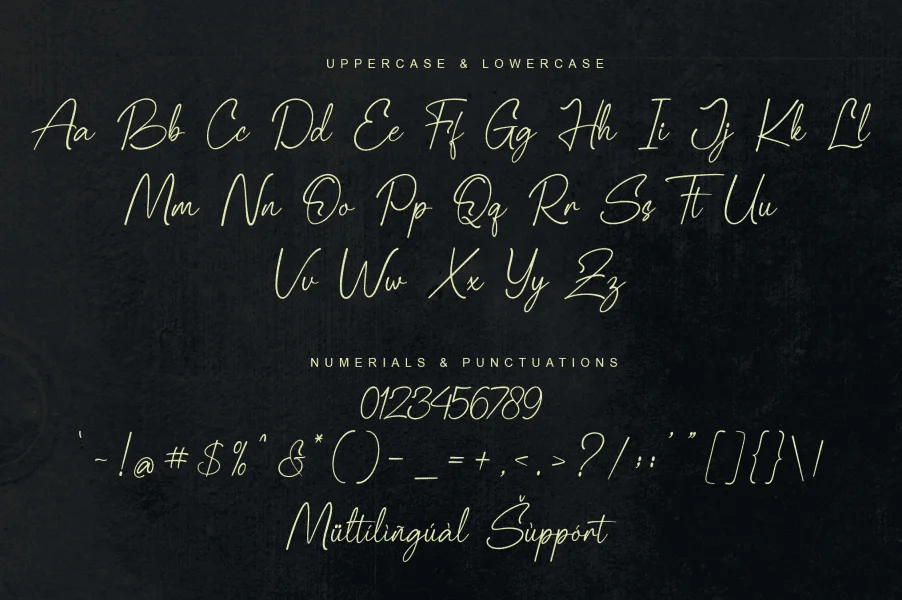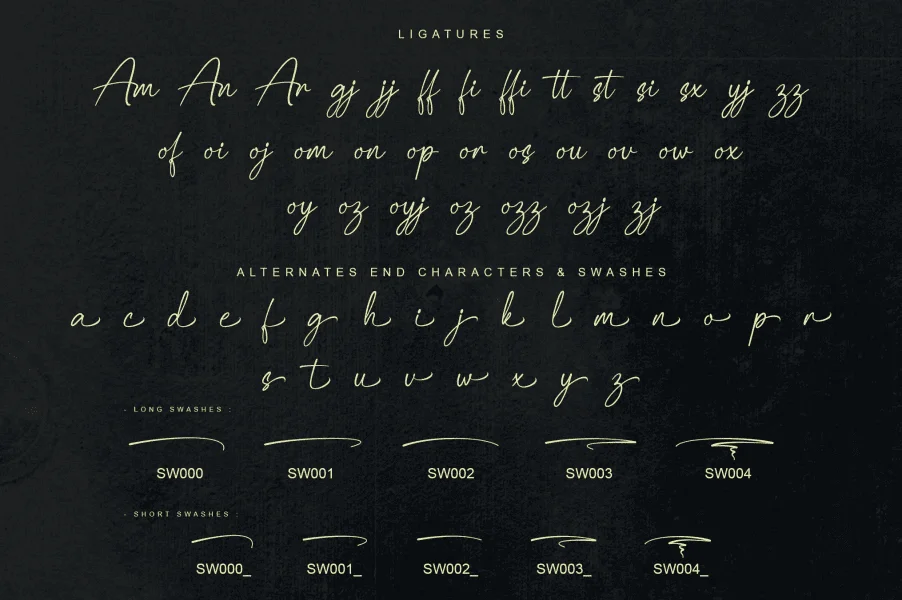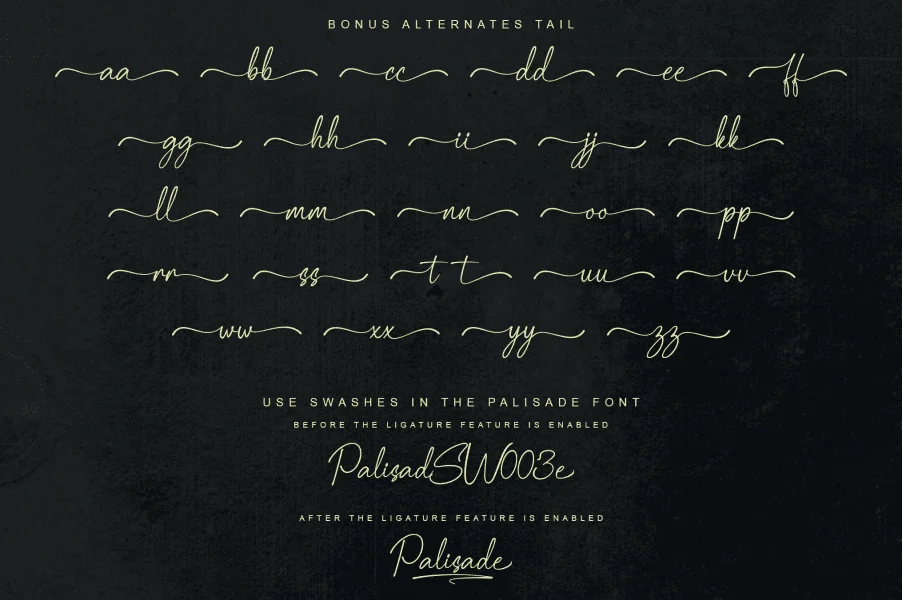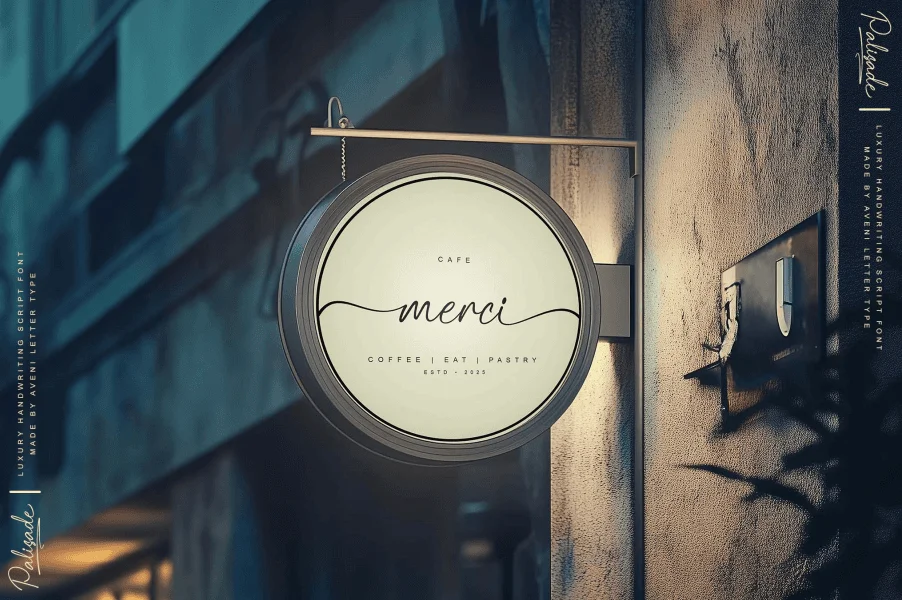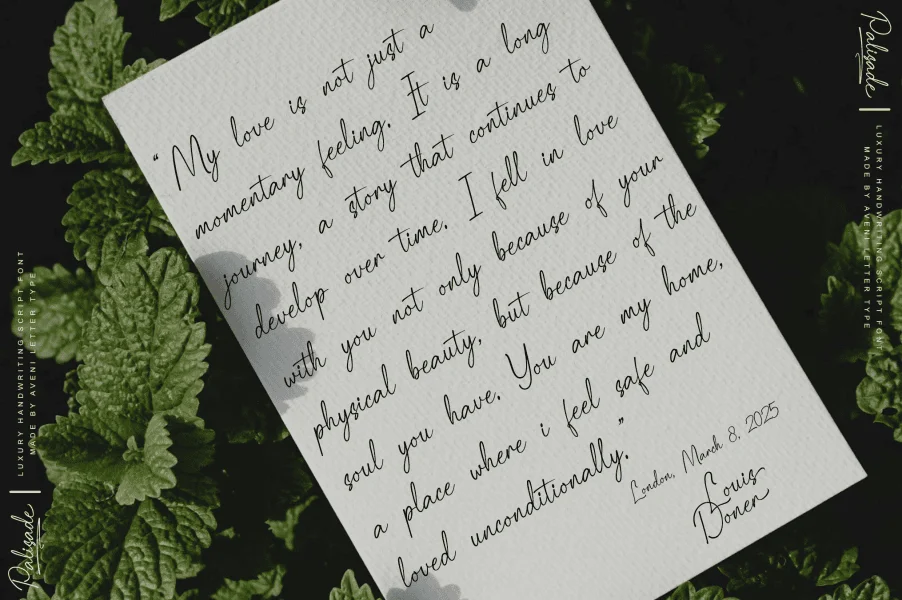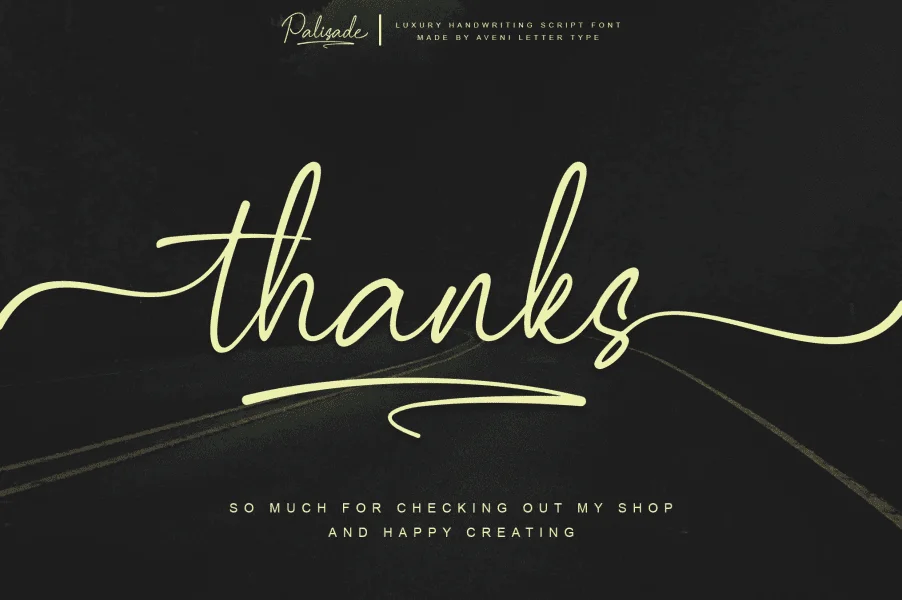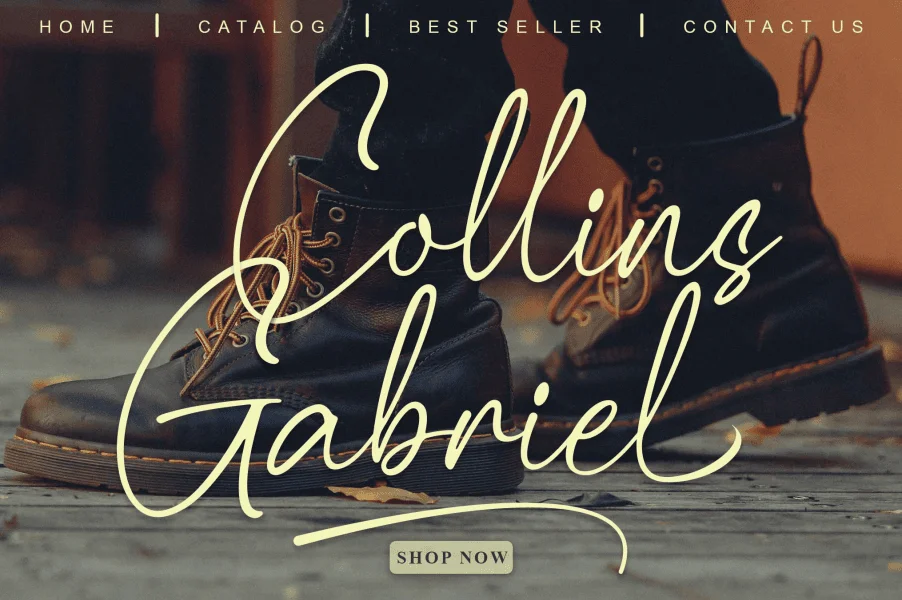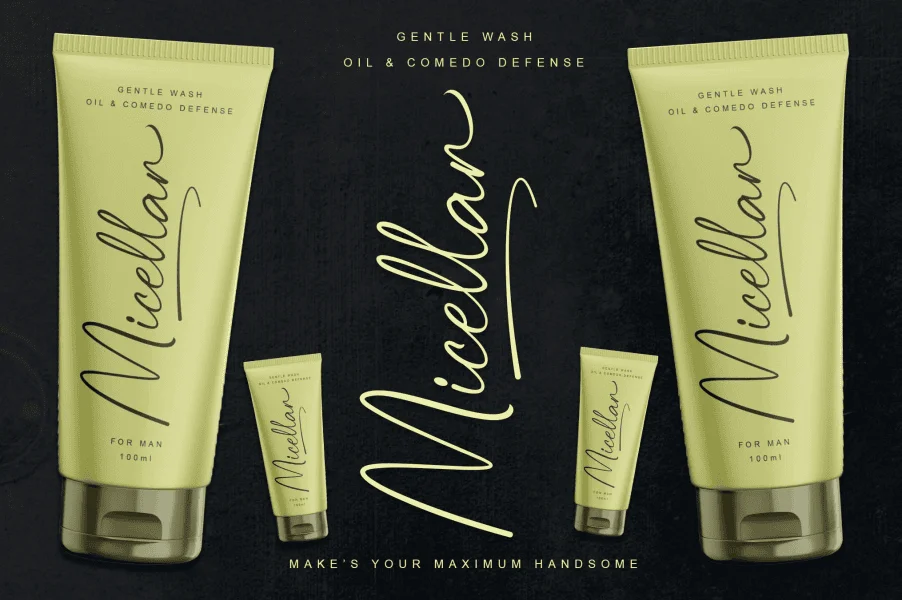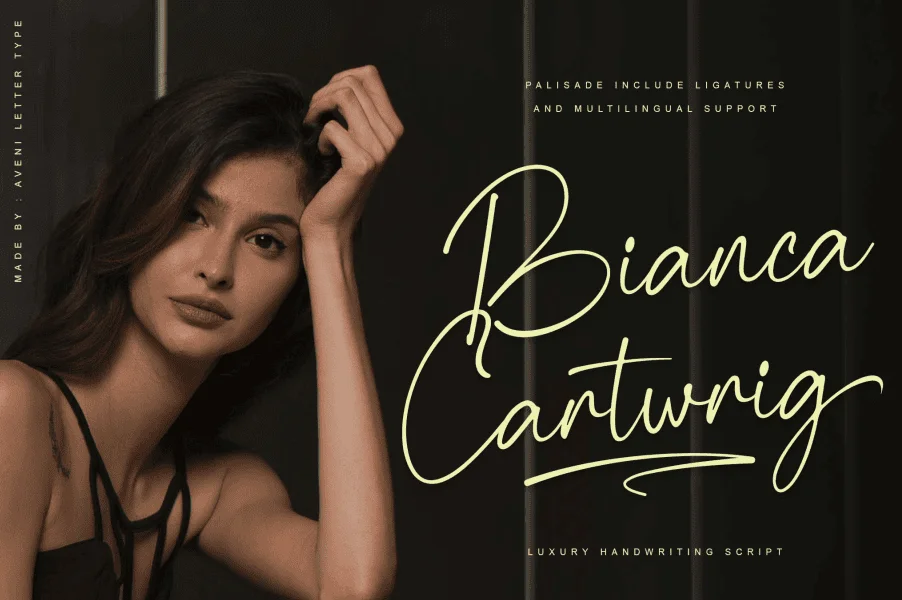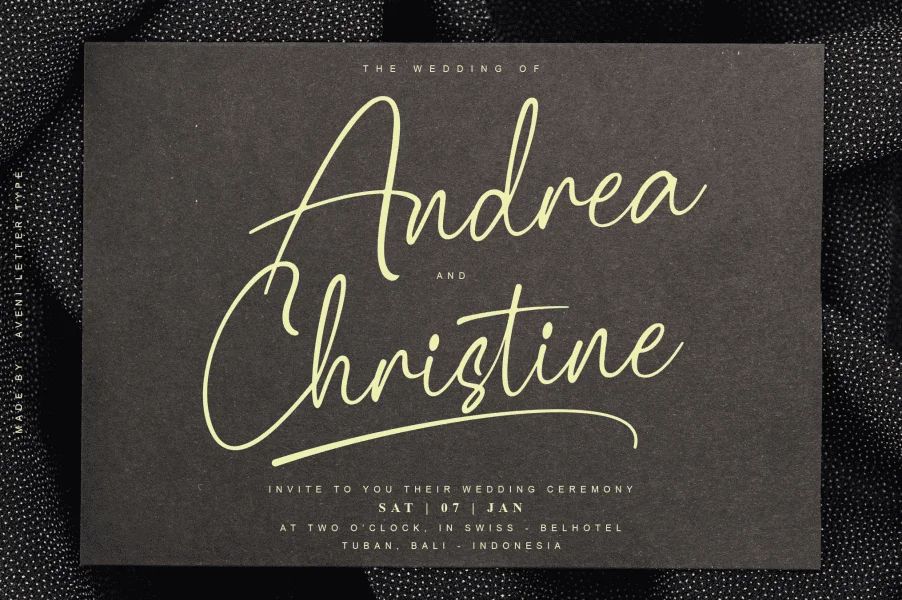
Hello Ladies & Gentlemen, Introducing this is the Palisade Font. This font has a handwritten font style with a luxurious and elegant touch, and of course, this font has been kerned very neatly, so it can make it easier for you to use this font.
Of course, this Palisade Font is very Instagrammable and has many features, so it is very suitable for use in many projects that you are working on, such as for company branding, logotypes, product branding, wedding invitations, business cards, your business nameplate, letterhead, and many more of course.